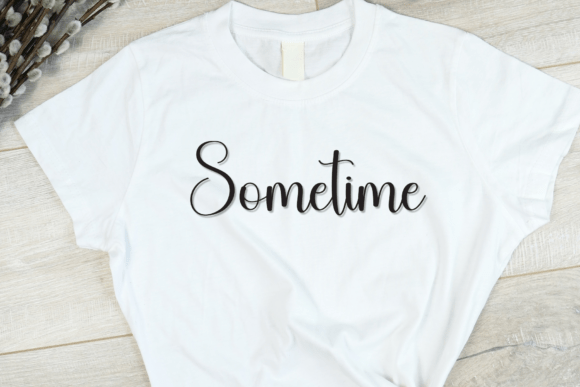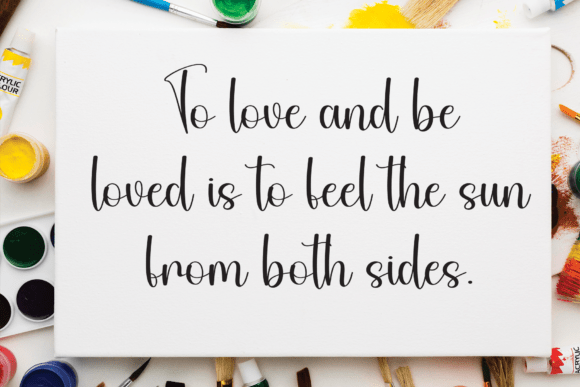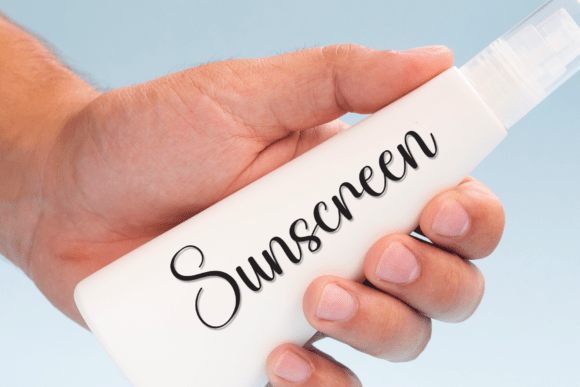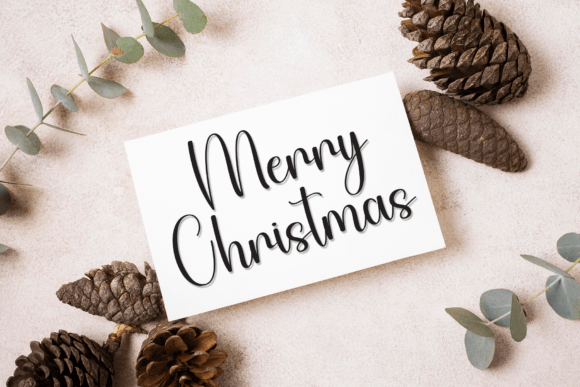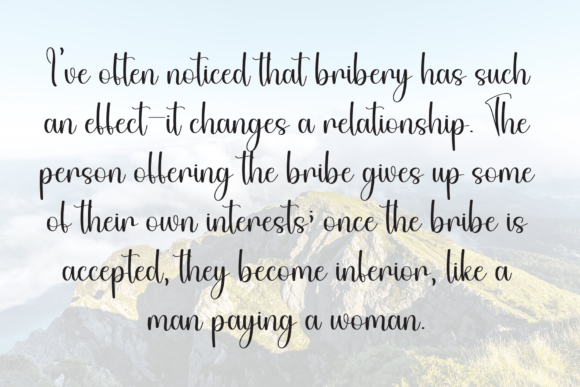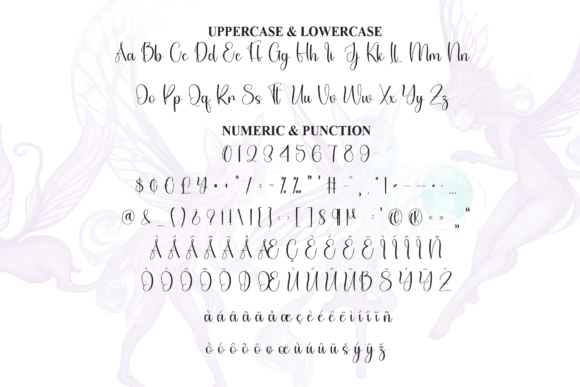
Introducing Fairytail Font: Elevate Your Designs with Whimsical Elegance
Are you a designer, crafter, or DIY enthusiast looking for a unique and creative way to add a touch of magic to your projects? Look no further than Fairytail Font, a beautifully crafted typeface that will transport your designs to a world of wonder and enchantment. In this article, we’ll explore the features and benefits of Fairytail Font, and how it can help you create extraordinary experiences for your audience.
A Font Like No Other
Fairytail Font is a specially designed typeface that boasts a range of creative possibilities. Its latest style letters are perfect for a variety of applications, including wall displays, wedding invitations, social media post logos, advertisements, product packaging, product designs, labels, photography, watermarks, invitations, stationery, and any project that requires tasteful handwriting. Whether you’re a professional designer or a crafty DIY enthusiast, Fairytail Font is the perfect addition to your creative toolkit.
Unlock Endless Creative Possibilities
Fairytail Font offers a world of creative possibilities, limited only by your imagination. Use it to:
• Create stunning wall displays and signage that capture attention and inspire wonder.
• Design beautiful wedding invitations, save-the-date cards, and other stationery that sets the tone for a magical celebration.
• Elevate your social media presence with eye-catching logos and graphics that showcase your brand’s personality.
• Develop unique product packaging and branding that stands out on store shelves and online.
• Add a touch of whimsy to your product designs, labels, and photography with Fairytail Font’s elegant, hand-crafted letters.
Why Choose Fairytail Font?
With so many fonts available, why choose Fairytail Font? Here are just a few reasons why designers and crafters love Fairytail Font:
• Unique and distinctive: Fairytail Font offers a one-of-a-kind look that’s sure to set your designs apart.
• High-quality and versatile: This font is designed to work seamlessly across a range of applications and platforms.
• Elegant and whimsical: Fairytail Font’s beautiful, hand-crafted letters add a touch of magic to any project.
Get Ready to Experience the Magic of Fairytail Font